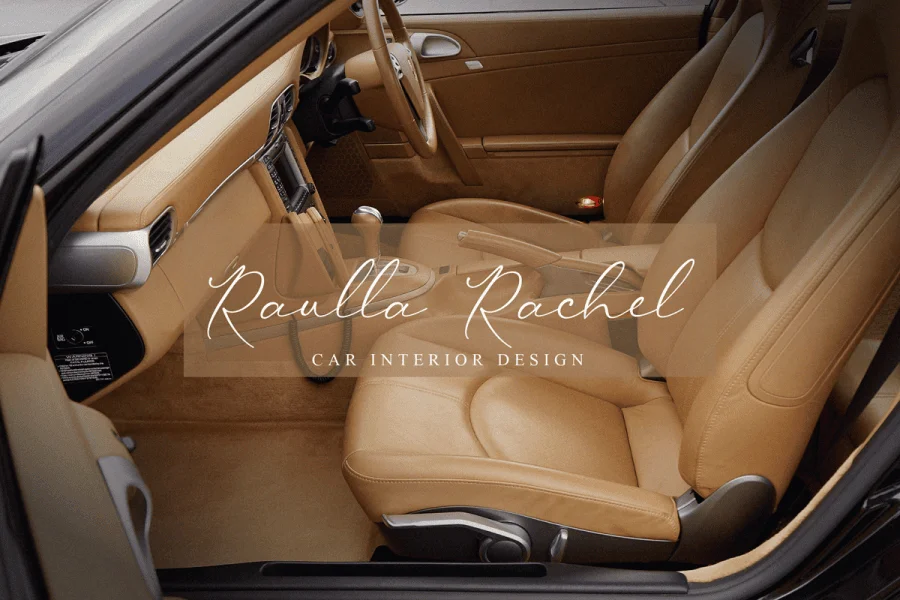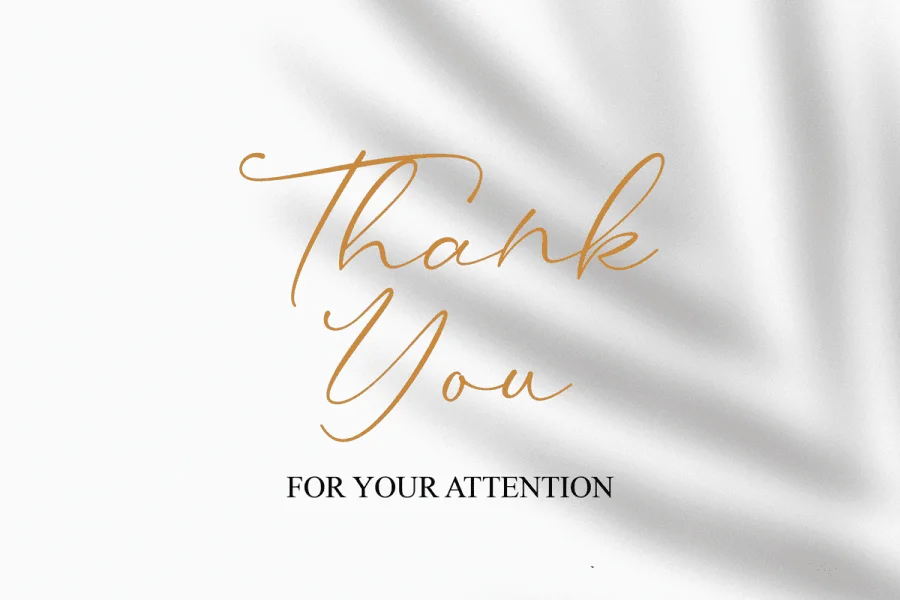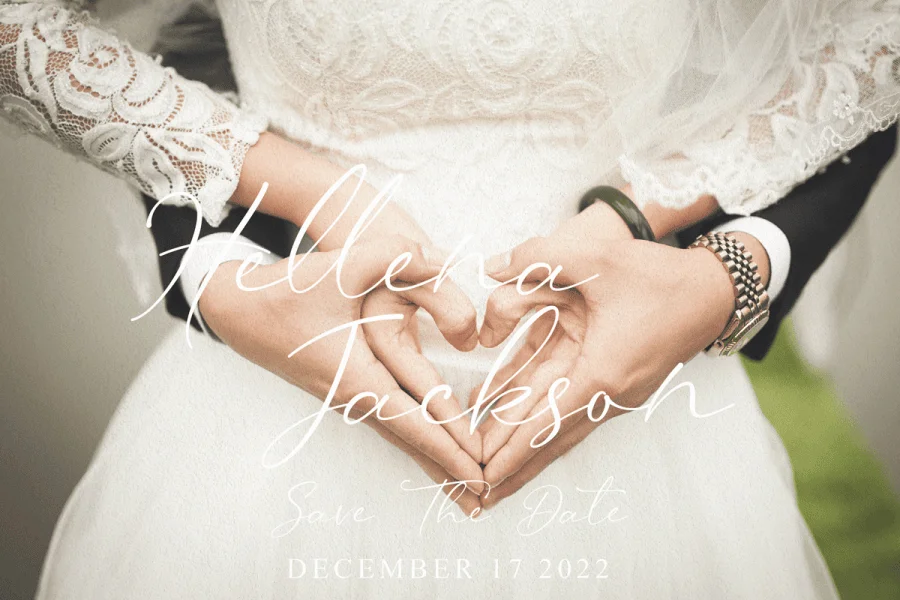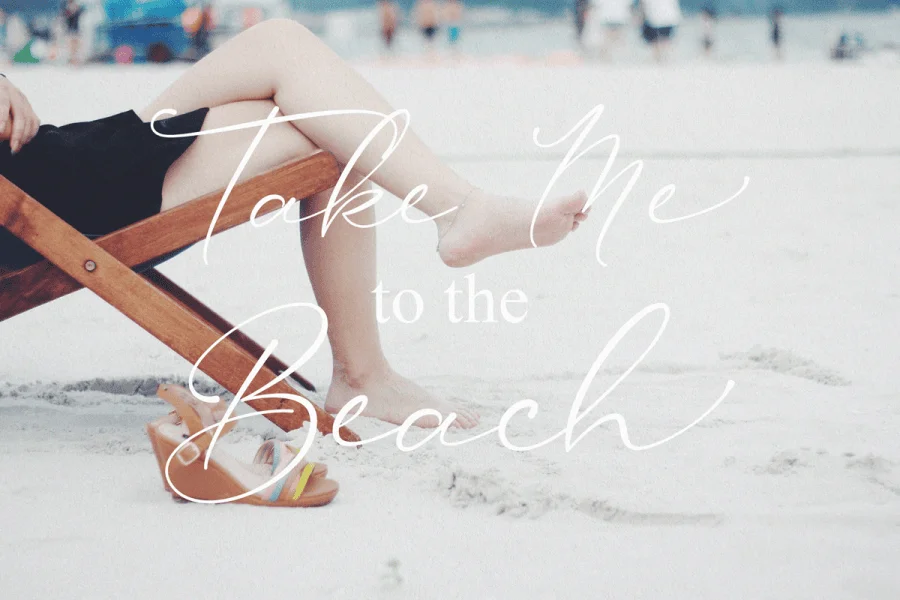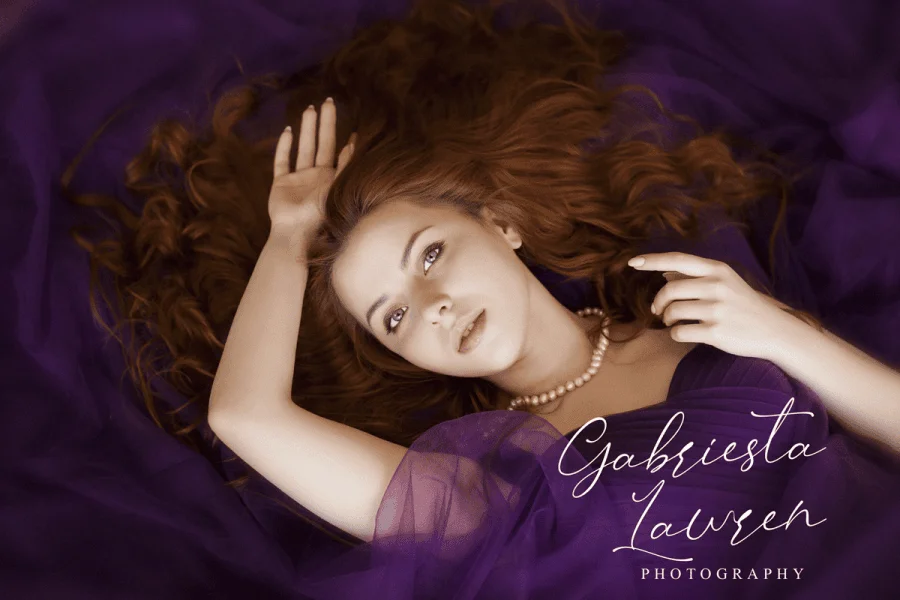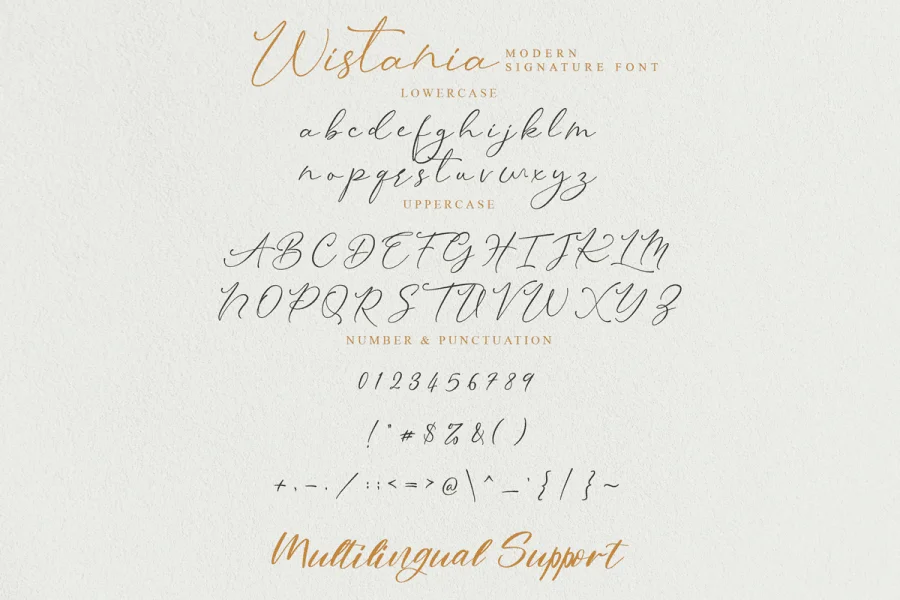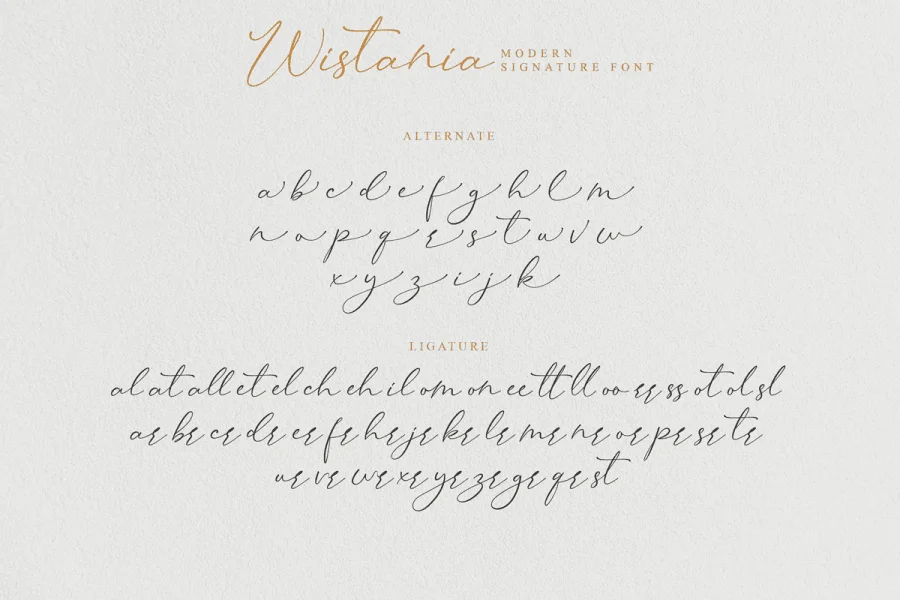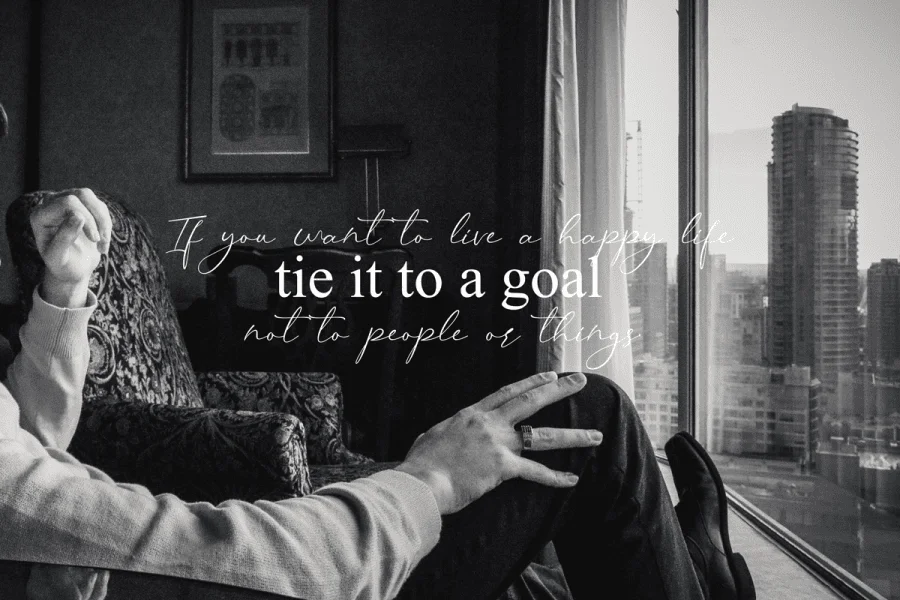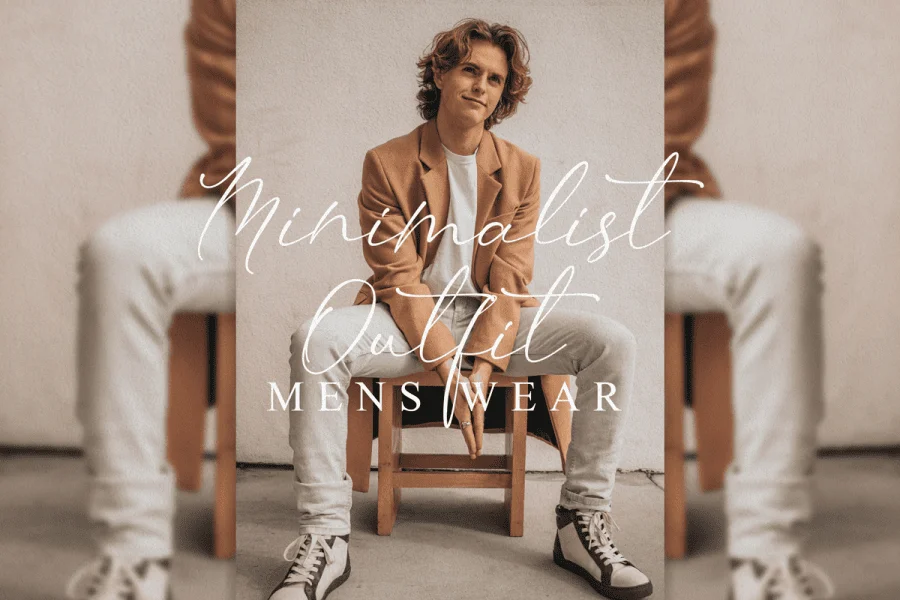
Wistania Font
Wistania – Modern Calligraphy Font
Wistania Font is a beautifully crafted typeface that blends contemporary elegance with the timeless charm of calligraphy. Featuring fluid strokes, delicate swashes, and refined ligatures, Wistania exudes sophistication and grace, making it perfect for luxury branding, wedding invitations, and high-end product packaging. Its balanced contrast and smooth curves ensure readability while adding a touch of artistic flair, ideal for projects that demand both style and professionalism.
Versatile and dynamic, Wistania works effortlessly in both formal and creative designs, from logos and social media graphics to editorial headings and personalized stationery. The font’s modern yet classic appeal captures attention, while its carefully designed letterforms maintain clarity across various sizes and applications. Whether used for romantic themes or upscale branding, Wistania brings a refined, handcrafted elegance to any design, leaving a lasting impression of luxury and creativity.